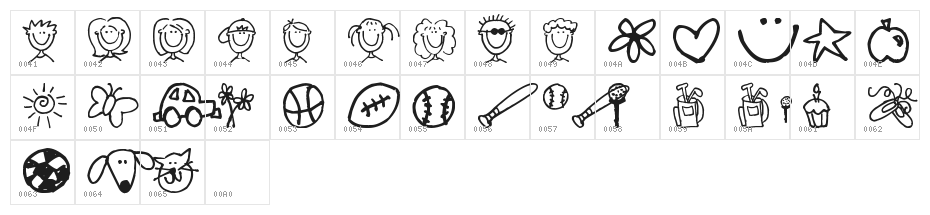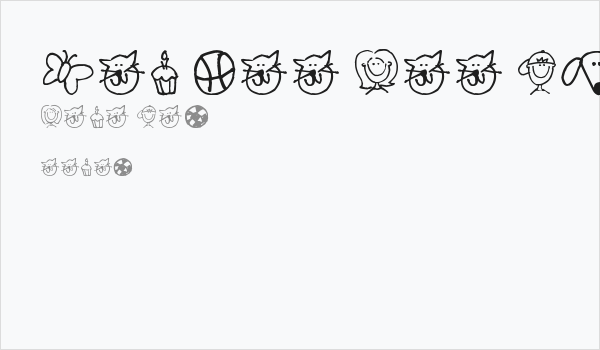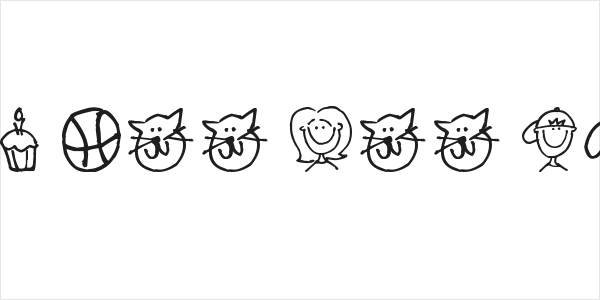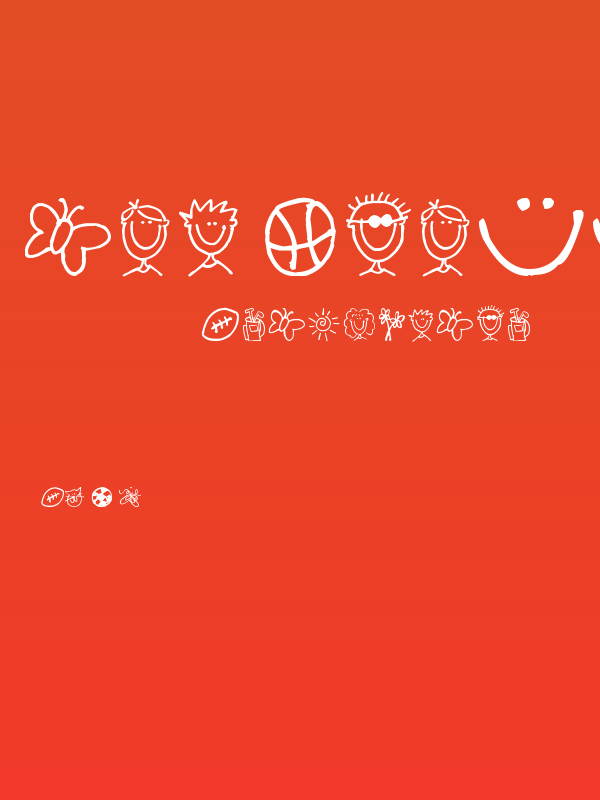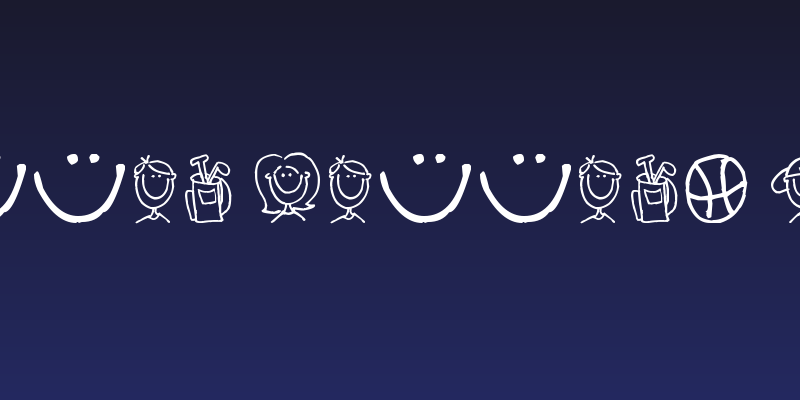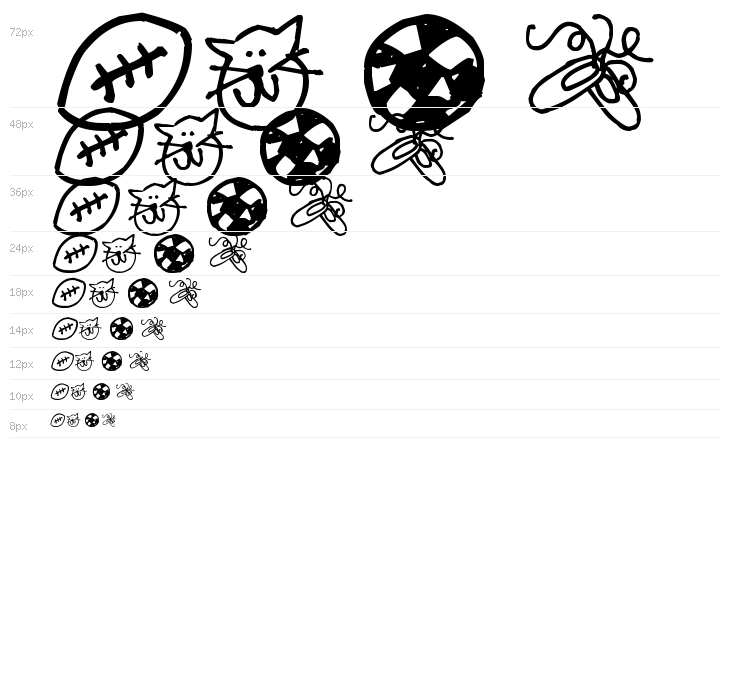
Pea Shelley Belley's Doodles Font
Pea Shelley Belley's Doodles Description
This collection features a whimsical and playful set of doodles, each crafted with a hand-drawn aesthetic. The characters include smiling faces, flowers, hearts, stars, and various objects like a car, sports equipment, and animals. The lines are uneven, adding to the charm and informal style of the doodles. Each element is distinct, with a bold outline that makes them stand out. The overall feel is lighthearted and fun, perfect for projects that require a touch of creativity and personality.
| Use Case | Decorative elements, Creative projects |
| Proposed Projects | Ideal for children's books, playful invitations, scrapbooking, and creative digital content. |